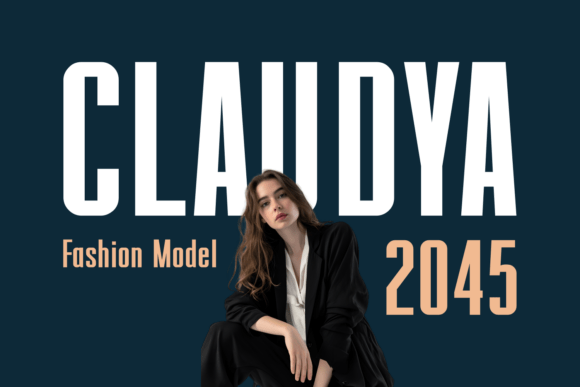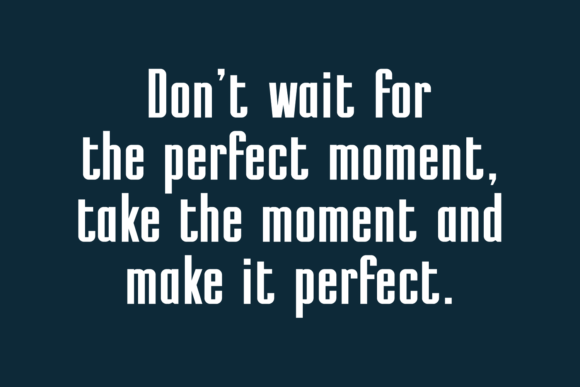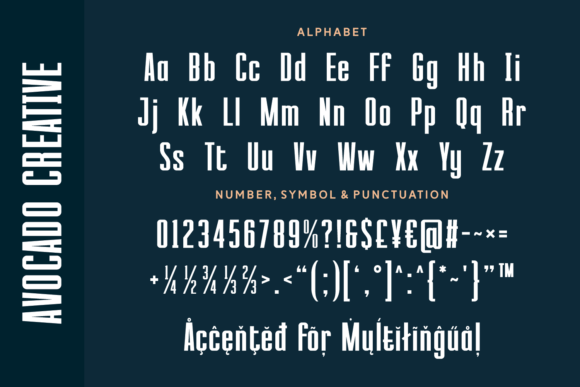
Introducing Avocado Creative Font: The Epitome of Modern Sans Serif Elegance
In the realm of typography, the right font can elevate a design project from ordinary to extraordinary. For those seeking a modern, distinct, and bold aesthetic, the Avocado Creative Font is an exceptional choice. This sans serif font is characterized by its tall and condensed letterforms, projecting a strong, contemporary, and somewhat edgy vibe that is sure to capture attention.
Key Features of Avocado Creative Font
Avocado Creative Font boasts several key features that set it apart from other sans serif fonts:
- Tall and Condensed Letterforms: The font’s tall and condensed design makes it perfect for headlines, titles, and any design element that requires a bold presence.
- Clean Lines with Subtle Variations in Stroke Width: The clean lines and subtle variations in stroke width give the font a unique character while maintaining good readability.
- Slight Curving on Character Edges: The slight curving on some of the characters’ edges, particularly visible in the lowercase, adds a touch of elegance to its otherwise bold presence.
Design Applications for Avocado Creative Font
Given its modern, bold, and sophisticated feel, Avocado Creative Font is ideal for a wide range of design applications, including:
- Fashion Branding: The font’s contemporary and edgy aesthetic makes it perfect for fashion brands looking to make a statement.
- Magazines and Editorial Design: Avocado Creative Font is well-suited for magazine titles, headings, and any editorial content that requires a bold and attention-grabbing font.
- Modern Corporate Identity: The font’s clean lines and elegant touch make it an excellent choice for modern corporate identities seeking a sophisticated look.
- Poster and Billboard Design: The font’s tall and condensed design makes it perfect for posters and billboards that require a bold and eye-catching headline.
- Website Headers and Titles: Avocado Creative Font is an excellent choice for website headers and titles, adding a touch of modern elegance to any website.
- Product Packaging: The font’s bold and sophisticated feel makes it perfect for product packaging that requires a modern and attention-grabbing design.
Why Choose Avocado Creative Font?
With so many fonts available, why choose Avocado Creative Font? Here are just a few reasons:
- Unique Character: The font’s subtle variations in stroke width and slight curving on character edges give it a unique character that sets it apart from other sans serif fonts.
- Readability: Despite its bold and condensed design, Avocado Creative Font maintains good readability, making it perfect for a wide range of design applications.
- Versatility: The font’s modern and sophisticated feel makes it suitable for a wide range of design projects, from fashion branding to product packaging.
In conclusion, Avocado Creative Font is an exceptional choice for designers and crafters seeking a modern, bold, and sophisticated sans serif font. Its unique character, good readability, and versatility make it perfect for a wide range of design applications. Whether you’re working on fashion branding, magazine design, or product packaging, Avocado Creative Font is sure to elevate your design project to the next level.